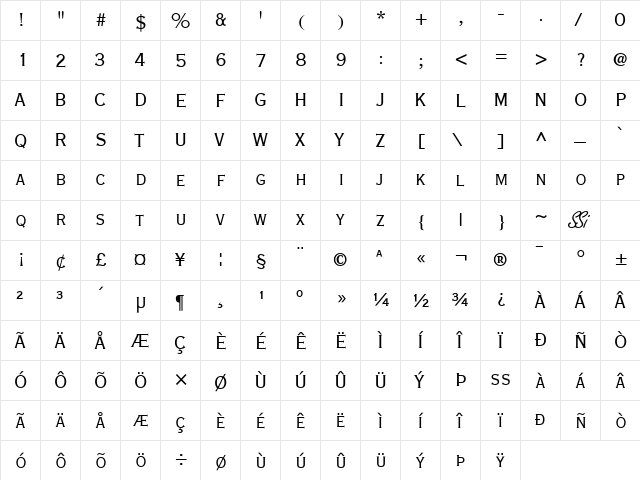
Copperplate Extra Condensed SSi Extra Condensed
Design Context for Copperplate Extra Condensed SSi Typeface
Copperplate Extra Condensed SSi takes a measured approach to typography — its balanced proportions and neutral character make it a reliable workhorse for both digital and print work. The condensed width makes it efficient for tight spaces without sacrificing legibility.